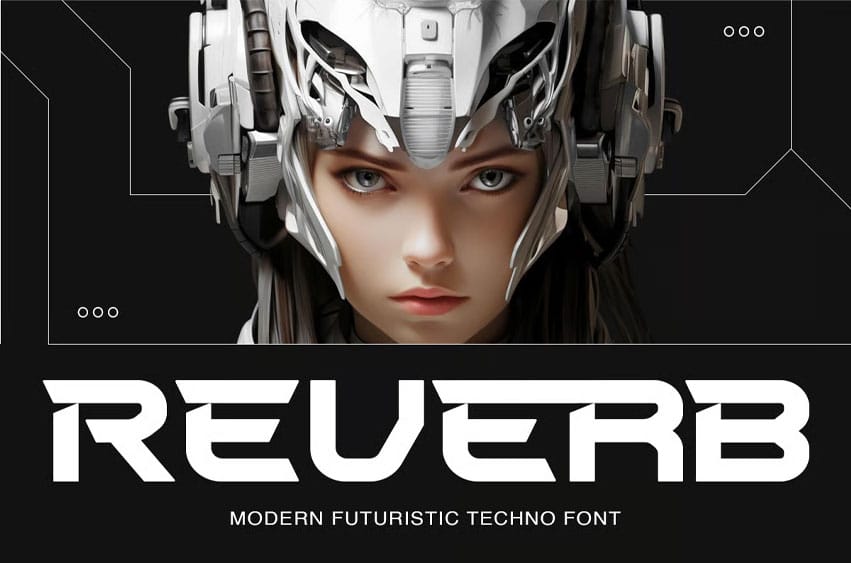
Reverb Futuristic Font is a techno-inspired display font with a bold, modular form that resonates with energy and rhythm. Built for high-impact visuals, it merges retro-futuristic elements with modern typographic construction. Its sturdy geometry and precise spacing make it versatile across both print and digital platforms, ideal for projects where clarity meets intensity.
Relevance and Use Cases: Best used in music branding, motion graphics, digital posters, album covers, product design, and sci-fi visual identity concepts.